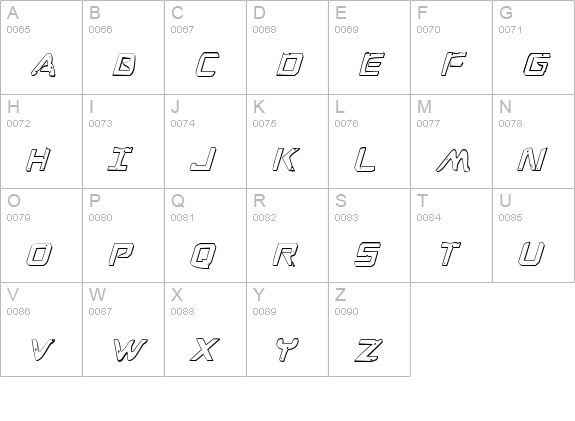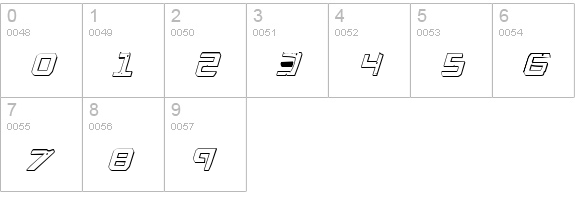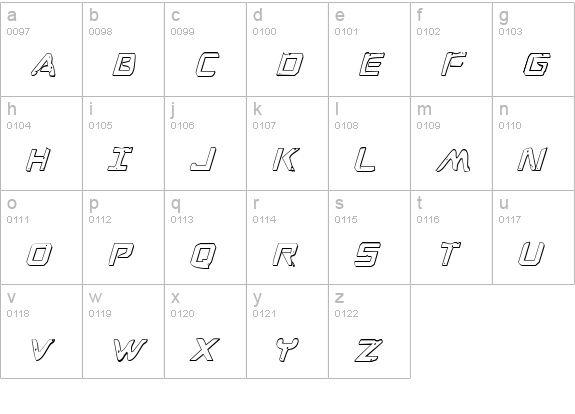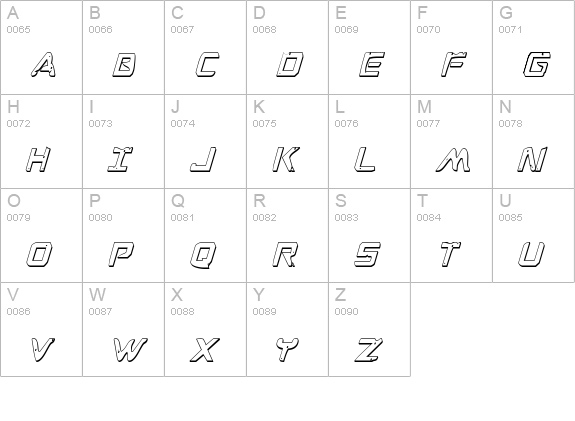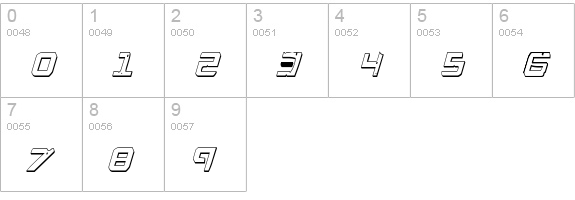
War Eagle 3D Condensed Italic Font Details
War Eagle 3D Condensed Italic is a distinctive, condensed-width, italic variant in the War typeface family \xE2\x80\x94 well suited to design and typography projects.
War Eagle 3D Condensed Italic font is a sleek and modern typeface that exudes sophistication and elegance. Its three-dimensional design adds a unique touch to any project, making it stand out from the crowd. The condensed style gives it a contemporary and edgy look, perfect for creating eye-catching designs. This font is ideal for a wide range of applications, from branding and advertising to packaging and signage. Its italicized form adds a dynamic and stylish flair to any text, making it perfect for conveying a sense of movement and energy. Best of all, War Eagle 3D Condensed Italic font is available for free download at FontsMarket.com. Whether you're a professional designer or a hobbyist looking to elevate your projects, this font is a versatile and powerful tool that will help you achieve your creative vision. Don't miss out on the opportunity to enhance your designs with this stunning typeface – download it today and take your work to the next level.